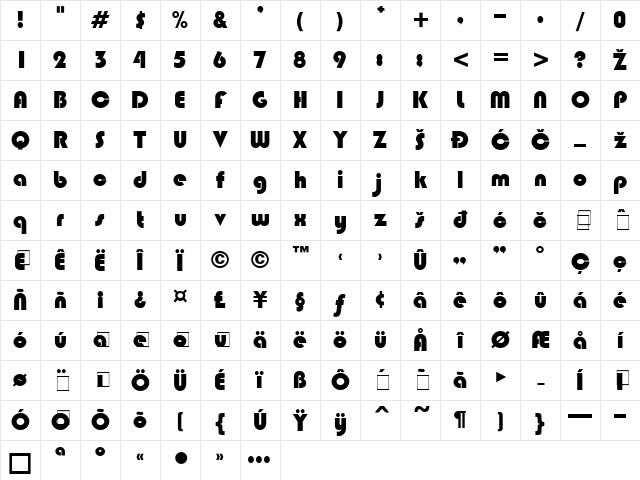
Blippo Bold YU Regular
Design Context for Blippo Bold YU
Blippo Bold YU is a composed and adaptable typeface that performs quietly and consistently across a wide range of design contexts. Its bold stroke weight gives it real presence on the page.
Pro Tip: Use Blippo Bold YU in both headline and body roles to test its range before committing to a single application.